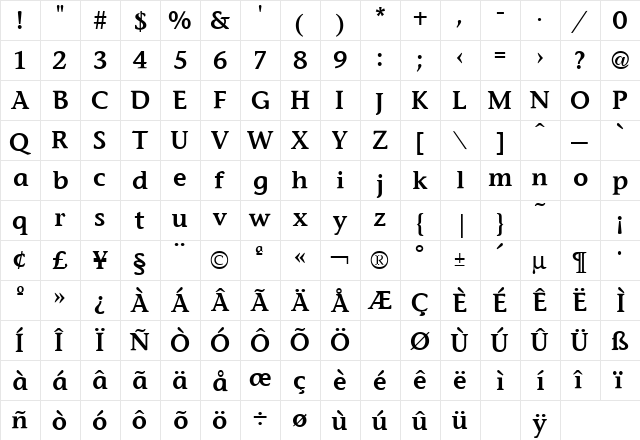
Stone Informal Semi Bold Regular
Design Context for Stone Informal Semi Bold Typeface
Stone Informal Semi Bold takes a measured approach to typography — its balanced proportions and neutral character make it a reliable workhorse for both digital and print work. The heavy weight commands attention and anchors typographic hierarchies.